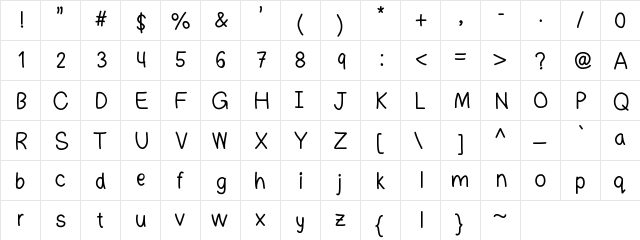
minsins Medium Font Preview
minsins Medium
Design Context for minsins Typeface
minsins is a composed and adaptable typeface that performs quietly and consistently across a wide range of design contexts.